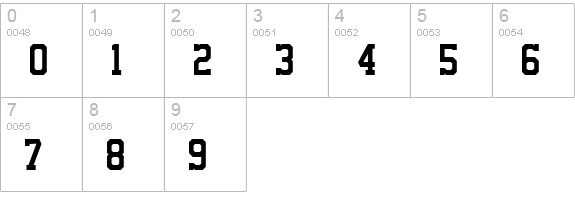
Staubach Font Details
Introducing Staubach, a captivating and versatile typeface that effortlessly combines elegance with a touch of modernity. This font is a true masterpiece, meticulously crafted to capture attention and leave a lasting impression. Staubach's refined and sleek letterforms exude sophistication and grace, making it the perfect choice for a wide range of design projects. Whether you're creating impactful headlines, stylish logos, or eye-catching posters, Staubach is sure to elevate your work to new heights. What sets Staubach apart is not only its impeccable aesthetics but also its accessibility. This remarkable font is available for free download exclusively at FontsMarket.com. Yes, you read that right - free! Now you can enjoy the beauty and versatility of Staubach without any cost or restrictions. With its wide range of weights and styles, Staubach offers endless possibilities for creative expression. From its bold and commanding Regular weight to its delicate and refined Light weight, this font allows you to effortlessly convey your message with precision and flair. Staubach's impeccable legibility ensures that your words will be effortlessly read and understood, even at smaller sizes. Its clean and well-defined letterforms guarantee optimal readability across various mediums, from digital screens to print materials. Designed with meticulous attention to detail, Staubach features subtle artistic touches that add a distinctive charm to your designs. Its subtle curves and subtle serifs create a harmonious balance between tradition and contemporary aesthetics, making it a timeless choice for any project. Whether you're a professional designer or an aspiring creative, Staubach is a must-have font in your toolkit. Its versatility, elegance, and effortless beauty make it the perfect companion for any design endeavor. So why wait? Experience the allure of Staubach today and set your creativity free. Download this exceptional font for free at FontsMarket.com and unlock a world of endless design possibilities.